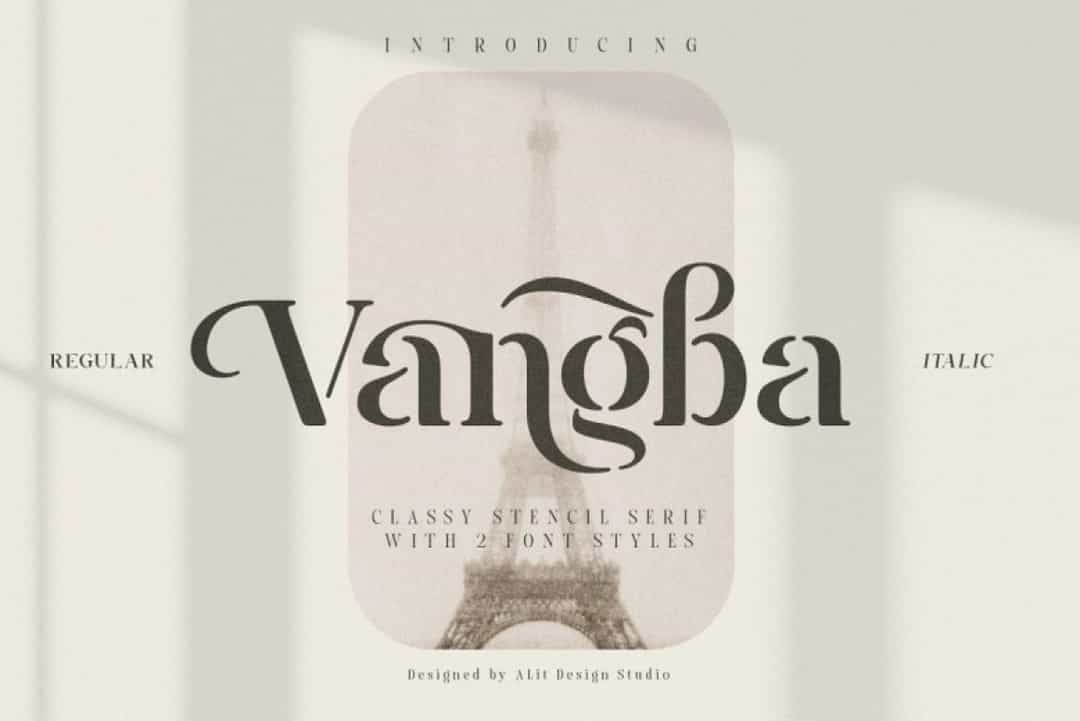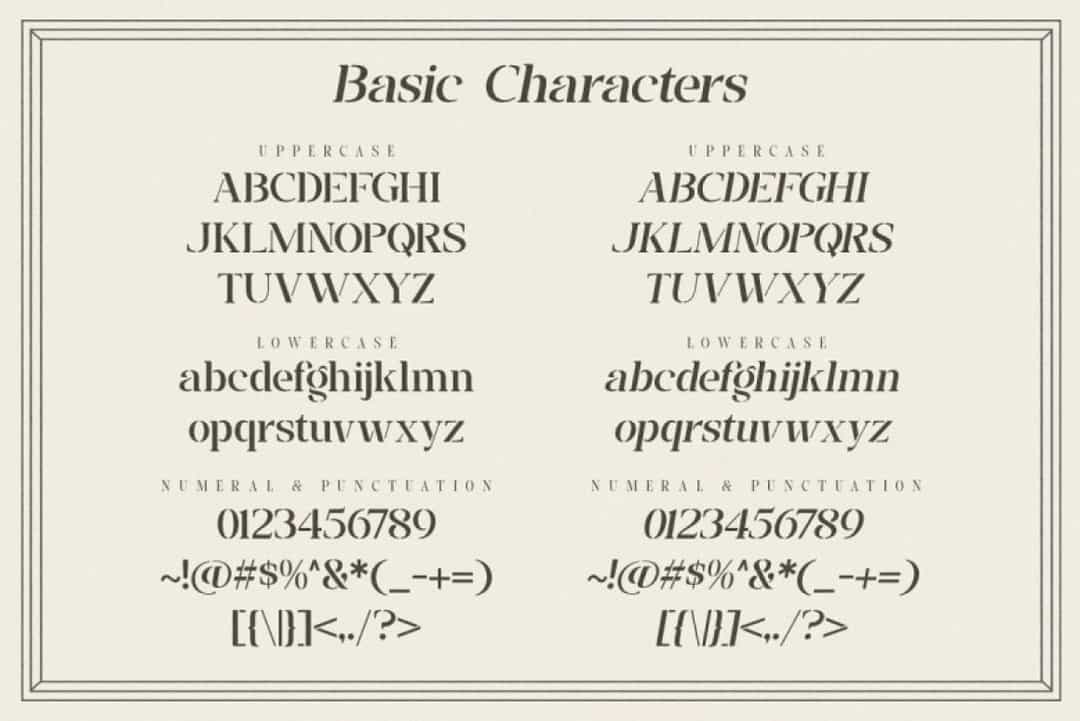
Vangba is designed using serif font principles with an intricate stencil style. Featuring unusual dynamic shapes that remain regular and distinctive, “Vangba” stands out in any crowd and draws its own spotlight.